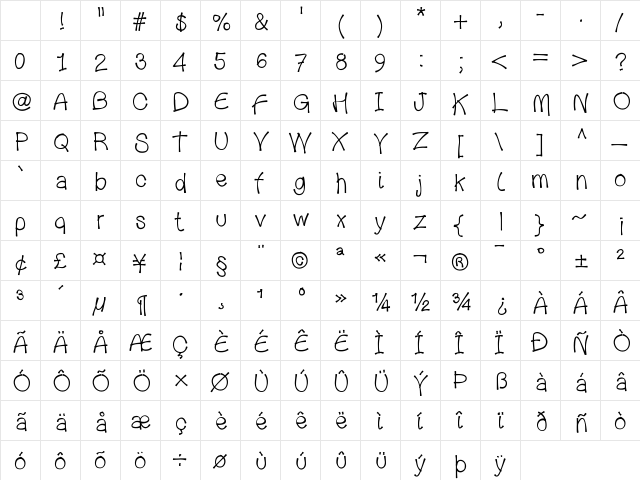
Complete 123Bambou Medium glyph index. Displaying only characters natively supported by 123Bambou Medium font.
123Bambou is a composed and adaptable typeface that performs quietly and consistently across a wide range of design contexts.